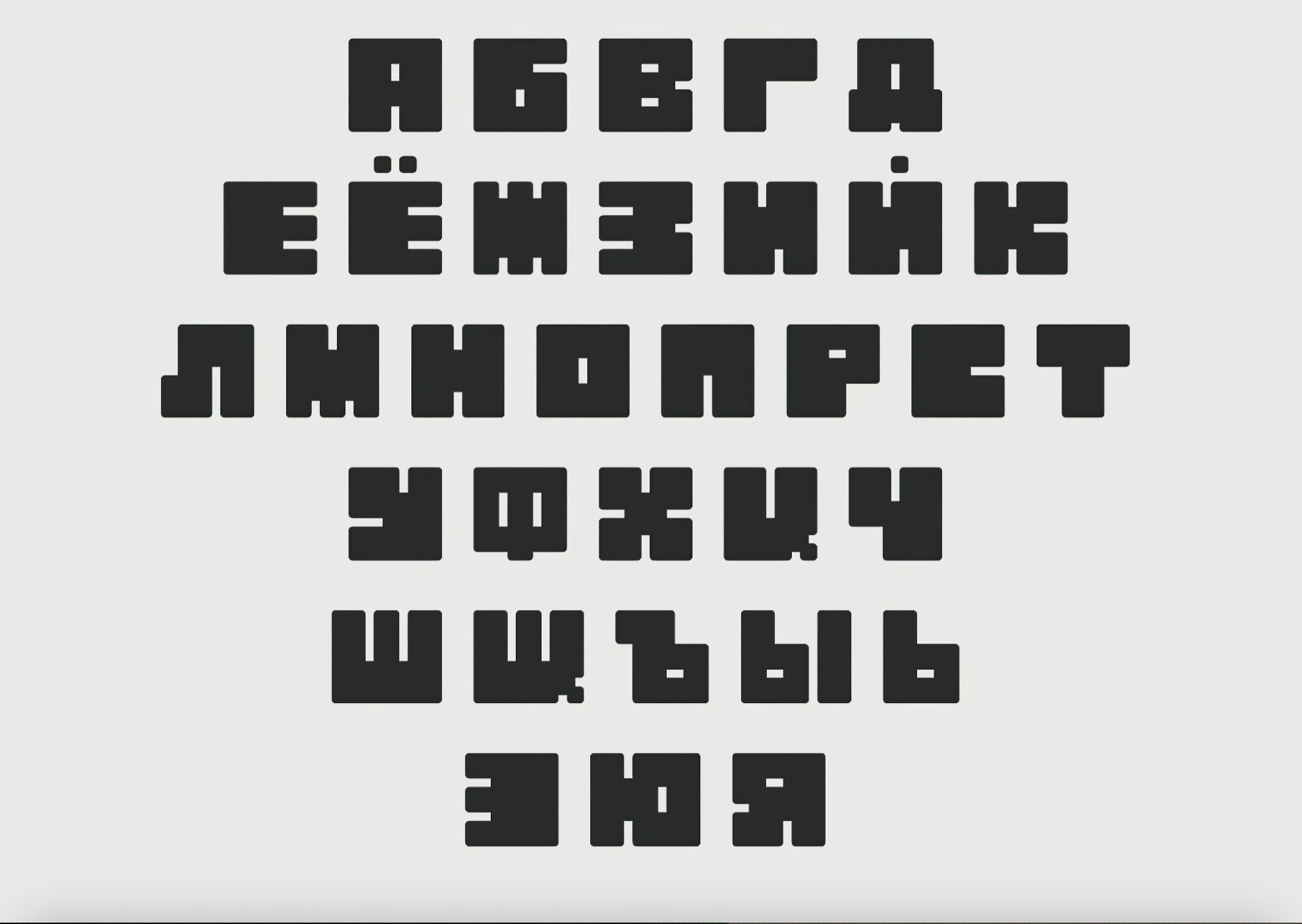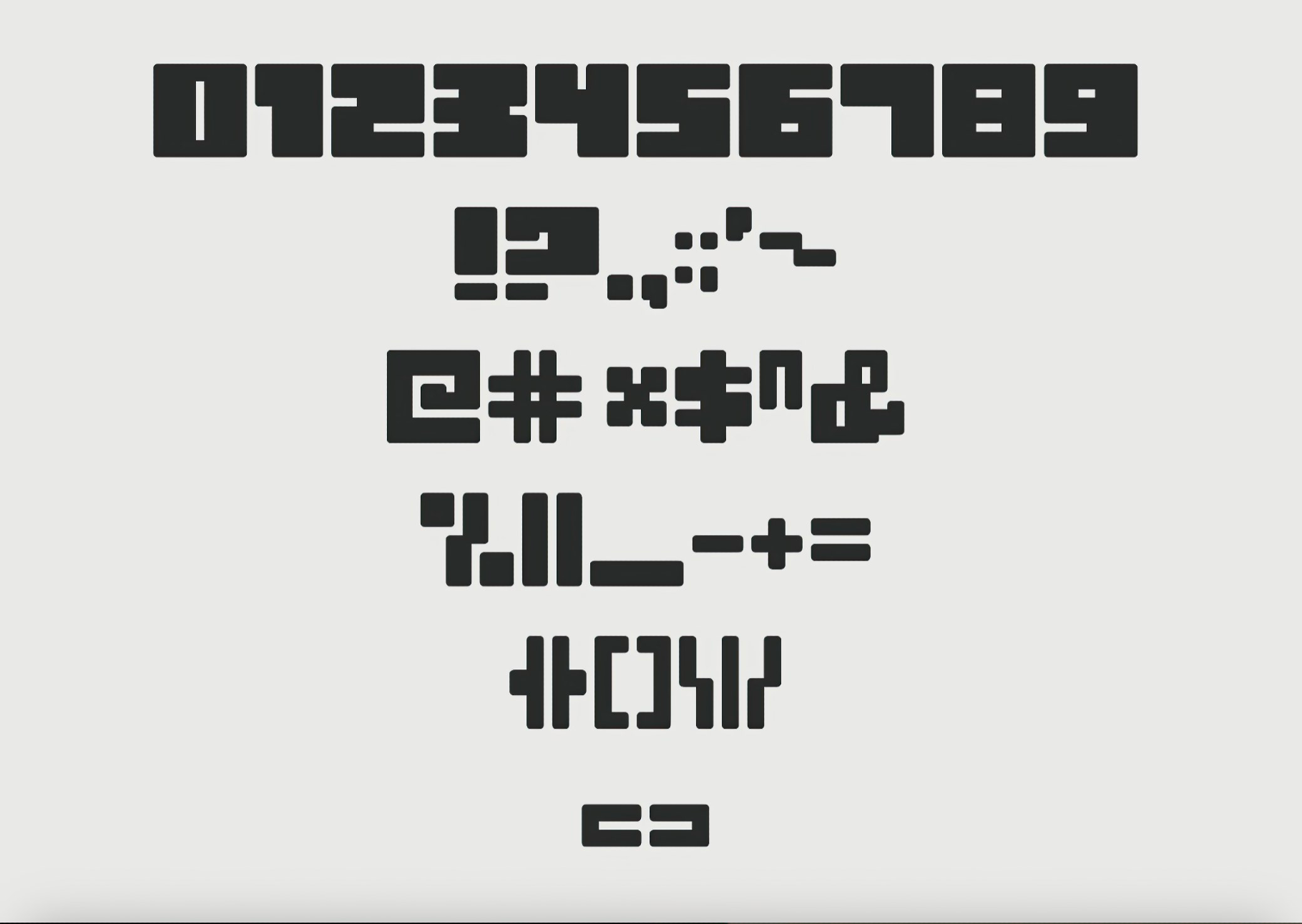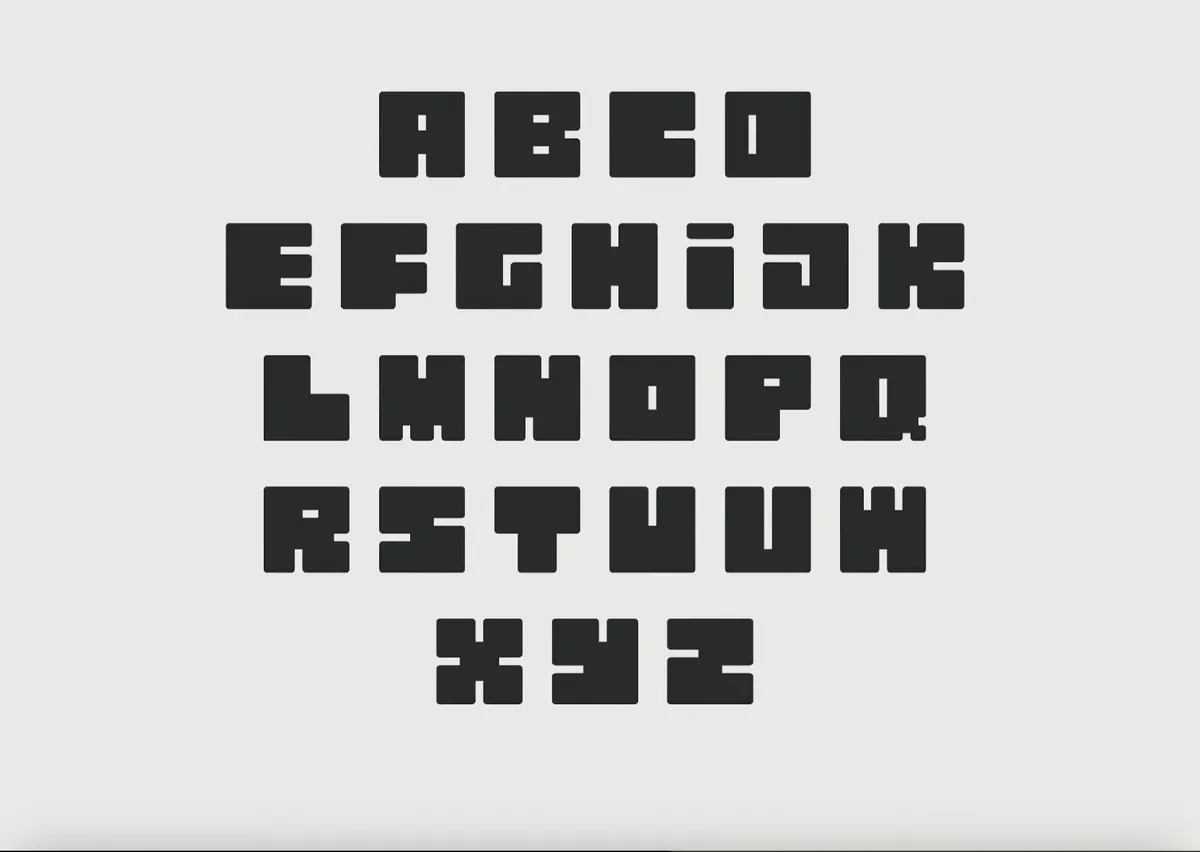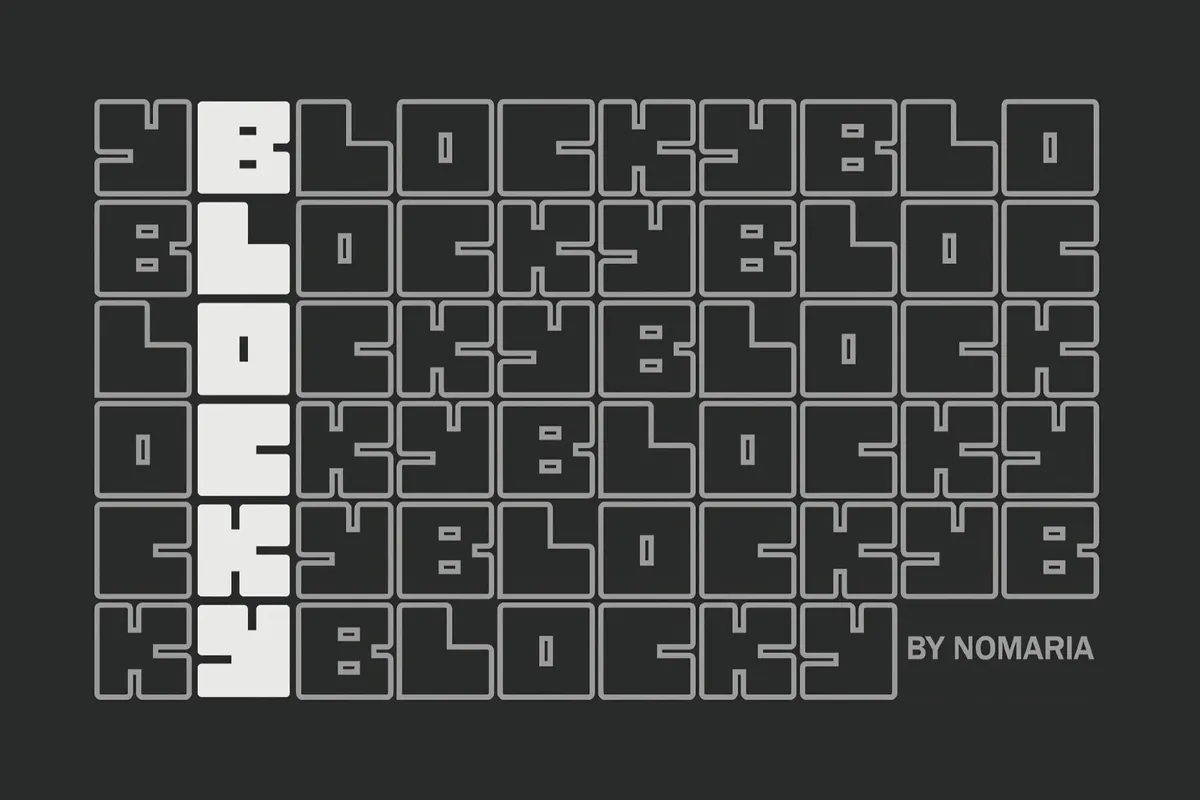
Blocky Font
Blocky
Blocky is an all-caps geometric display with rectangular letters on a rigid grid — smth from the early 8-bit pixel art and cartridge-era packaging. It works well for gaming logos, bold posters, editorial headlines, tech or esports branding, logo wordmarks, signage, wayfinding, YouTube thumbnails, retro-inspired packaging, event graphics, and social media visuals.
- Only uppercase letters A–Z.
- Numbers, punctuation, and core symbols.
- Multilingual support across extended Latin and Cyrillic scripts.